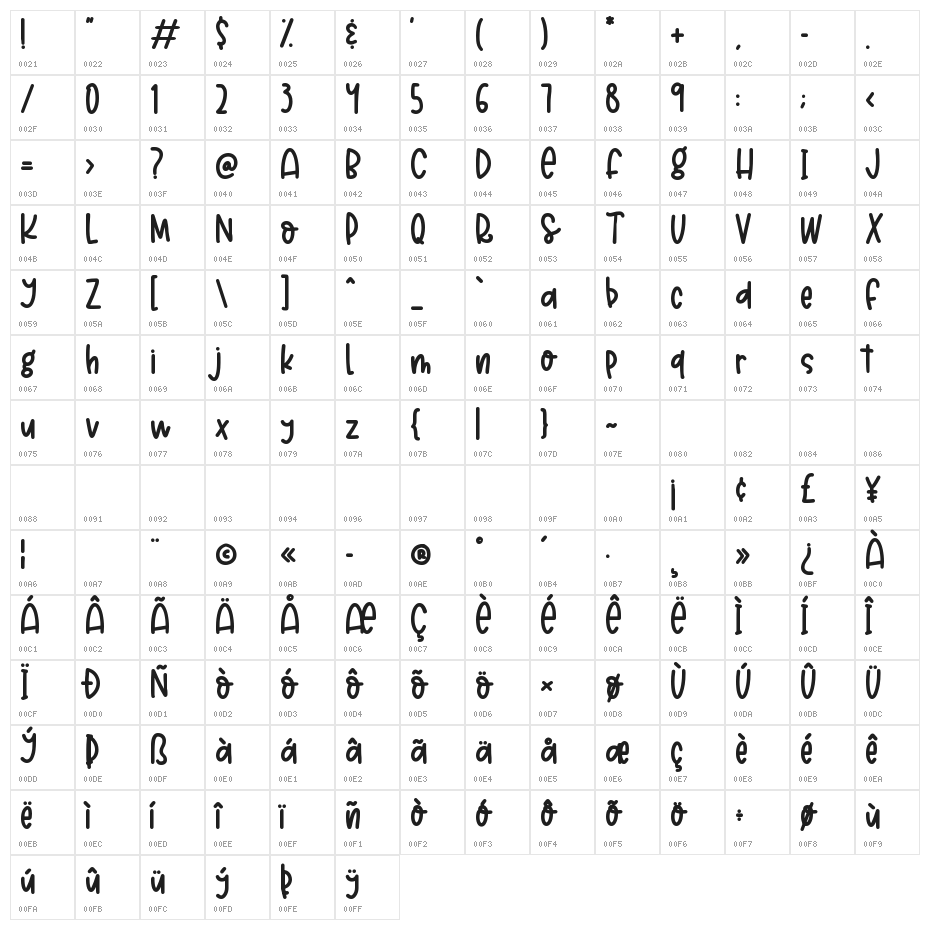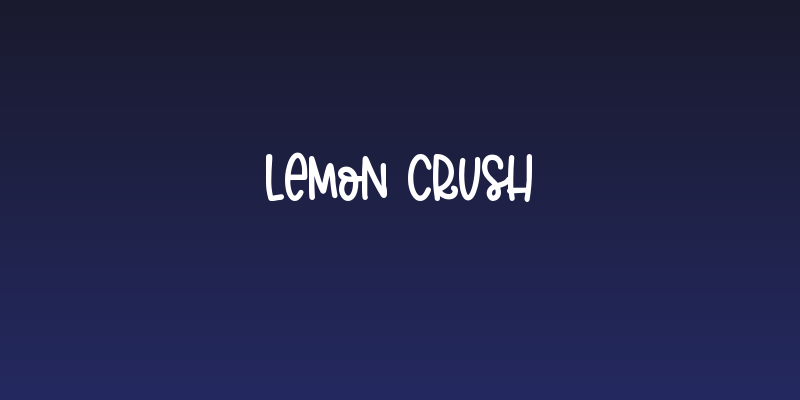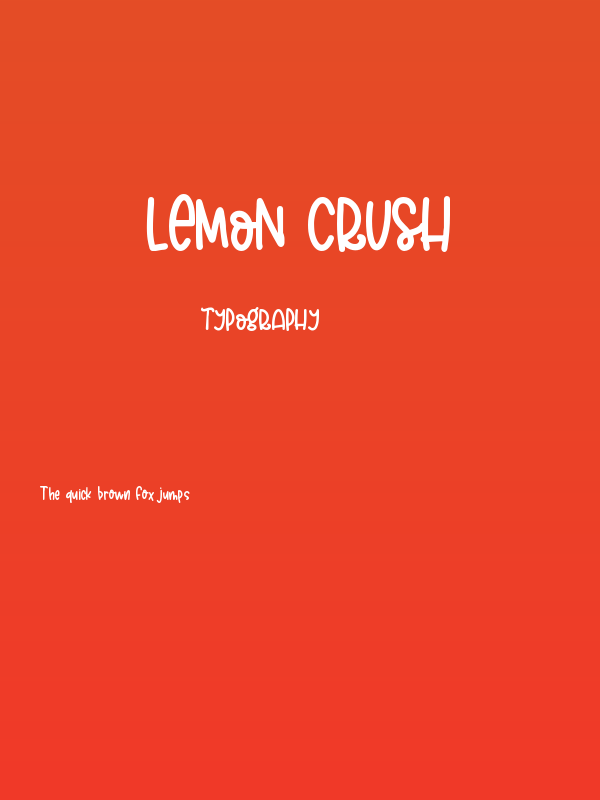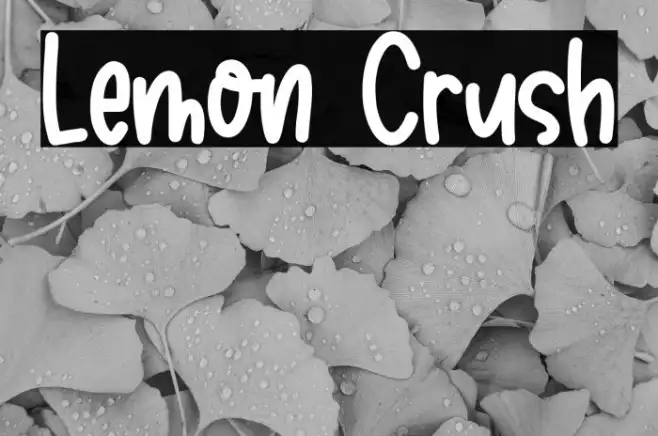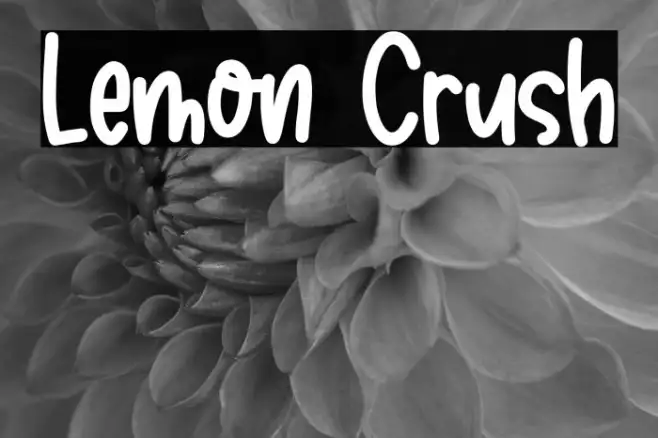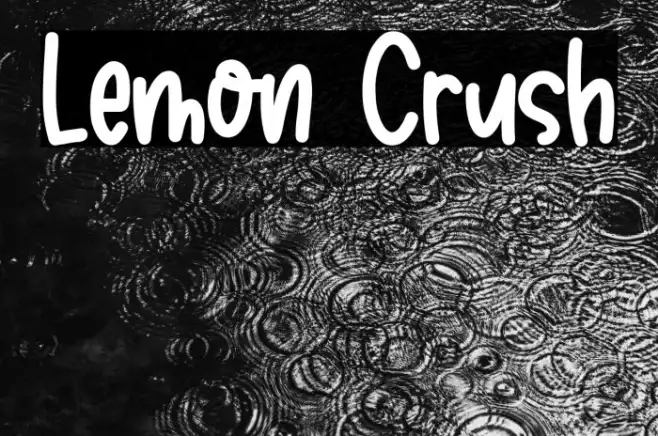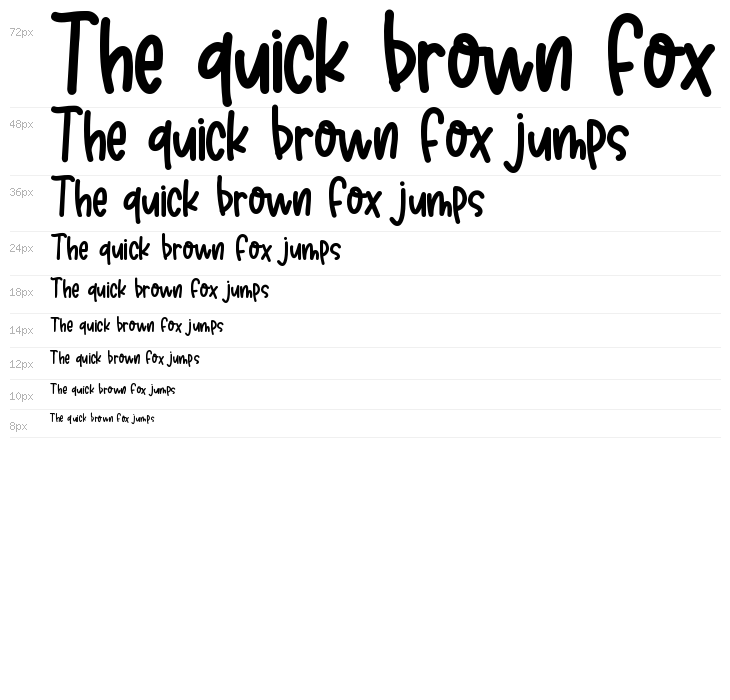
Lemon Crush Font
Lemon Crush Description
This playful and bold font features a handwritten style with a casual and friendly appearance. The letters are rounded and slightly irregular, giving it a whimsical and approachable feel. The uppercase and lowercase letters maintain a consistent style, with a smooth flow and a slight tilt, adding to its informal charm. The numbers and special characters are equally expressive, maintaining the same playful aesthetic. This font is perfect for projects that require a touch of fun and creativity, such as children's books, playful branding, or casual invitations.
| Proposed Projects | Ideal for children's books, playful branding, casual invitations, and creative projects. |